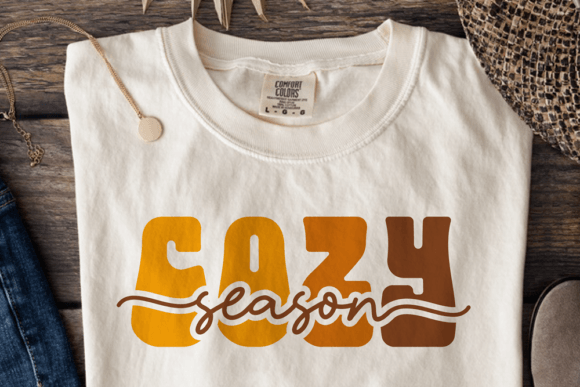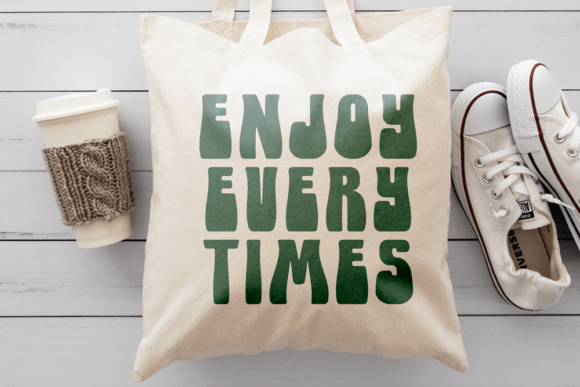
Fall Vibes Font
About the Fall Vibes Font
We are excited to introduce Fall Vibes Font, a must-have typeface for any serious designer. Fall Vibes Groovy is a cool retro duo font (display and monoline script). It is perfect for any hippie design that requires a groovy look and it’s guaranteed to make an impact.
Fall Vibes Font excels as a display font for headlines, posters, and branding projects needing a retro, 70s aesthetic. Its bold, playful nature makes it ideal for projects targeting a younger demographic or those with a focus on fun, laid-back vibes. Avoid using it for body text or long-form content; its distinctive style isn’t optimized for readability in smaller sizes or extended passages.
Pairing Fall Vibes with a clean sans-serif like Open Sans for body text creates a strong contrast and visual balance. For a more cohesive retro feel, consider pairing it with a geometric sans-serif such as Futura or a complementary script font with a less stylized feel.
The overall personality is undeniably groovy and optimistic, lending itself well to brands associated with music festivals, vintage clothing, or any design aiming for a retro-inspired, carefree mood.
Fall Vibes Font Usage Examples
Fall Vibes Font Example